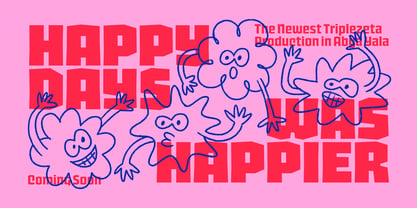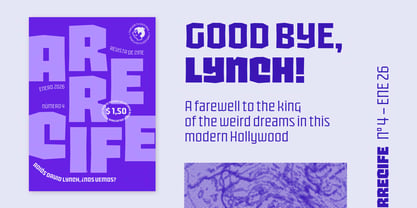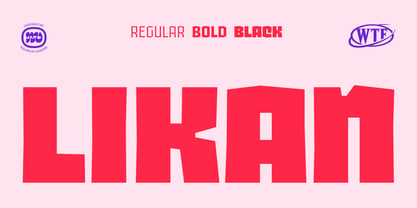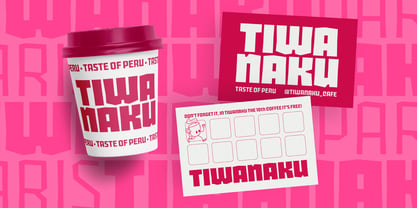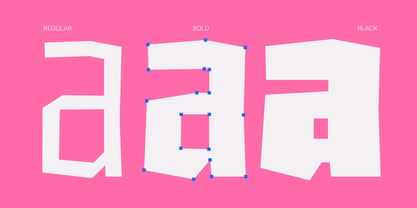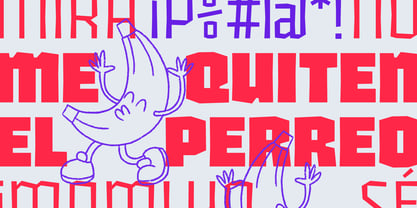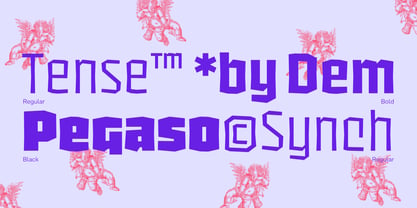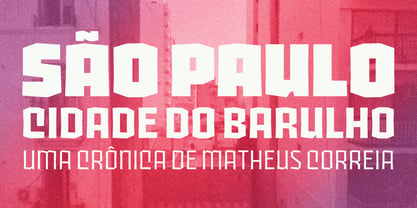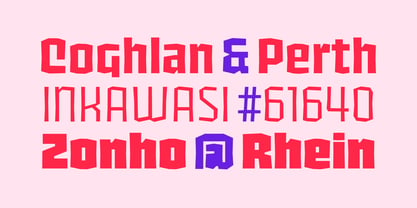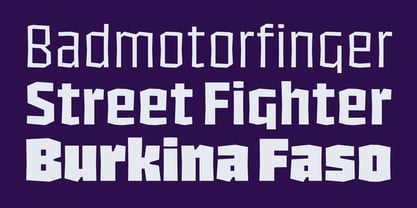
Likan
by W Type Foundry
The Likan Font Family was designed by Mauricio Adasme and published by W Type Foundry. Likan contains 3 styles and family package options. More about this family
Likan is a font with angular strokes and subtle, sharp incisions, drawing from the Expressionist style and Gothic calligraphy. Its name comes from a word in the Mapuzungun language related to concepts like “rocky,” but sometimes translated as “flint.” Likan design exudes a “volcanic” appearance, mirroring the rugged landscapes of the southern Chilean Andes.
Designers: Mauricio Adasme
Current Foundry: W Type Foundry